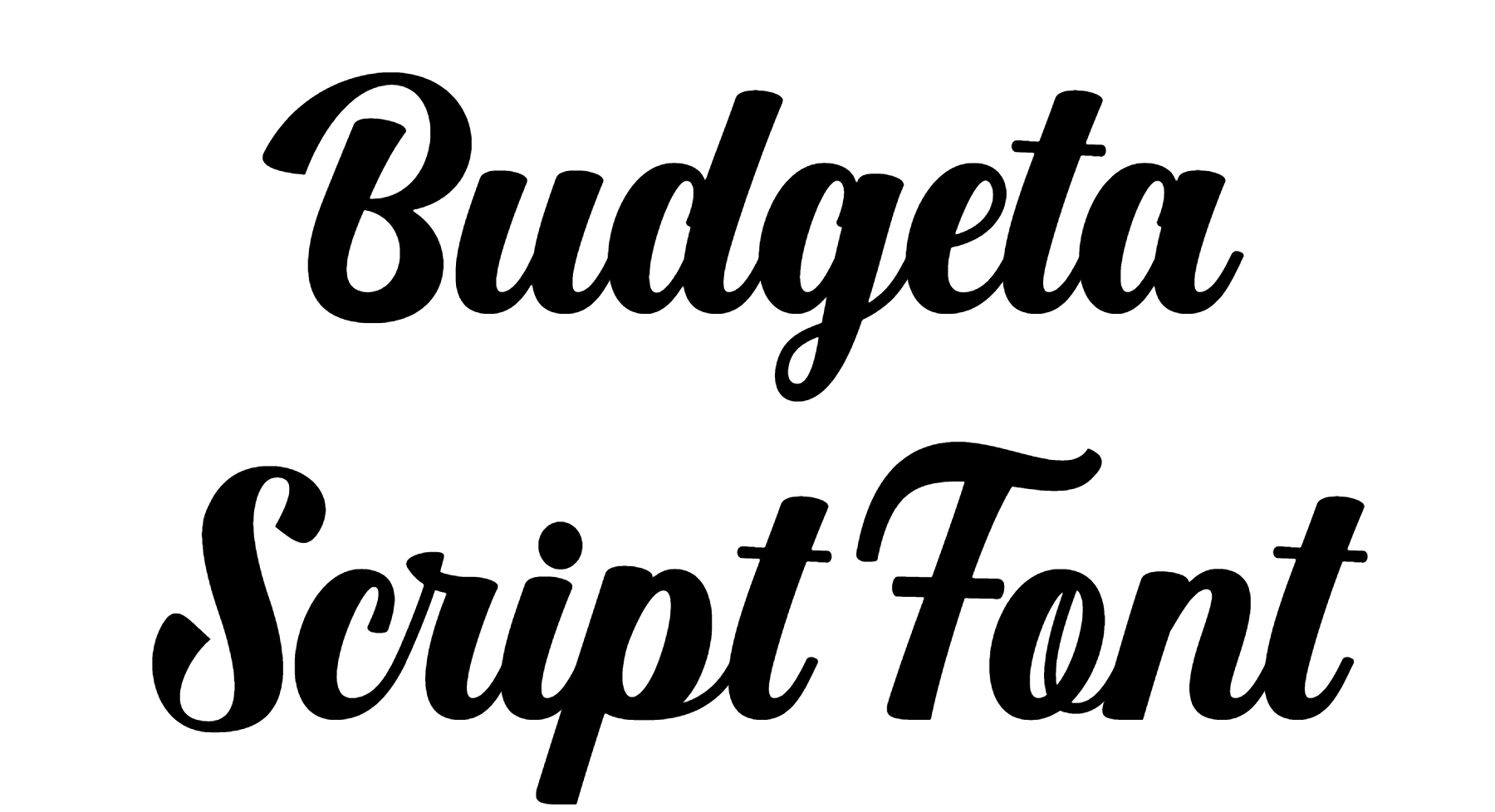
Budgeta Script
Budgeta Script is a script font created by RIZKI ANDIKA and released through LetterFresh (2020). Its flowing, pen-made letters give names and short phrases a personal, polished look. You can download it for free and test it with your own words in the preview above.
With complete upper and lowercase letters and all ten digits, Budgeta Script is ready for real wording, not just a single headline. Everyday marks like &, !, ? and @ are there too. Thanks to its accented letters, it also works for Spanish, German and Italian, not just English.
Designers usually reach for fonts like Budgeta Script when they're making wedding invitations, logos and signature-style headings. Its lowercase letters are tall compared to the capitals, which keeps it readable at smaller sizes. Script fonts read best in short bursts, so keep it to names, titles and one-line quotes. Skip all caps: script capitals are drawn to start a word, not to fill one.
Yes. Budgeta Script includes the accented letters needed for Spanish, German and Italian, so it works for more than just English.